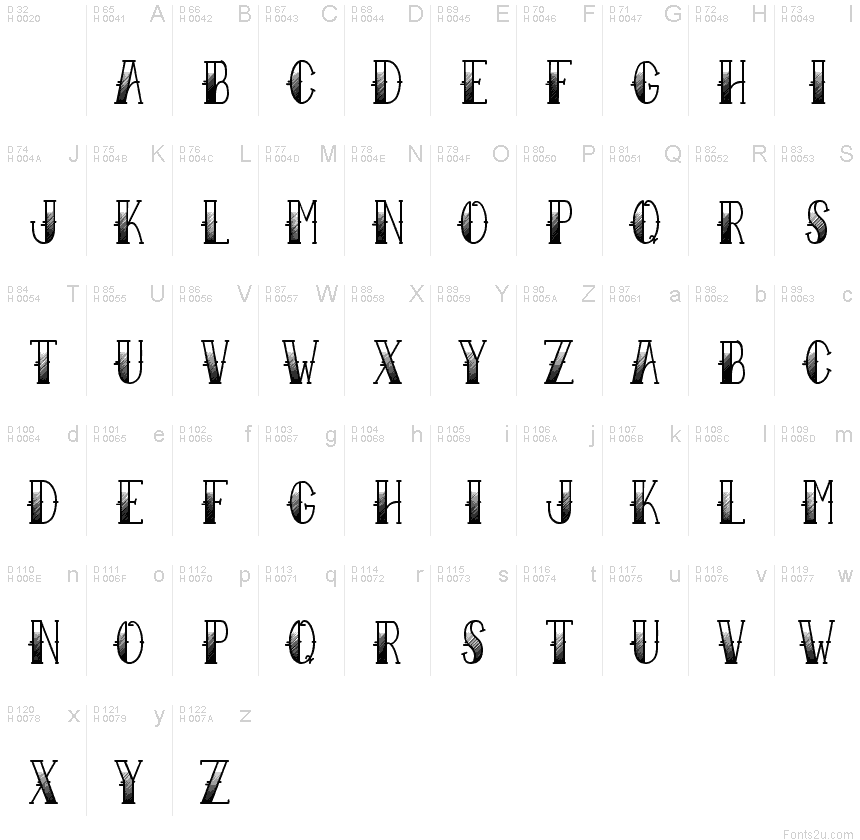
Sailor Larry - Fade by Tom Ledin is a free decorative retro display font with tall, narrow letters, broad slab-like feet, and theatrical proportions. Fine horizontal bars cut through the strokes, and dense diagonal hatching rises from the lower portions like engraved shadow.
Its etched shading echoes vintage print illustrations. That connection makes it apt for music posters, bar packaging, festival merchandise, and editorial covers, where the repeated crossbars and dark lower texture can become part of a larger linework motif.